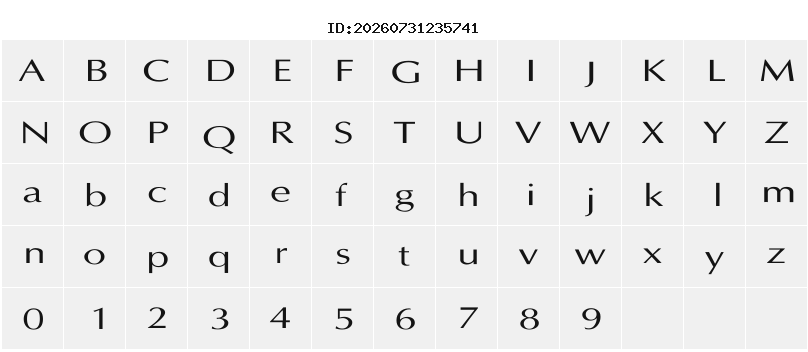
• Font Name: Last Uniform
• Font ID: Last Uniform
• Full Font Name: Last Uniform
• Version: Version 1.00 December 1999
• PostScript Name: Last Uniform
• Designer: S. John Ross
• Description: A fan-clone of LUG's TNG body font
About Last Uniform.ttf
Last Uniform.ttf is a modern, elegant sans-serif font designed for ultimate readability and visual harmony. Perfect for branding, headlines, web design, and print materials.